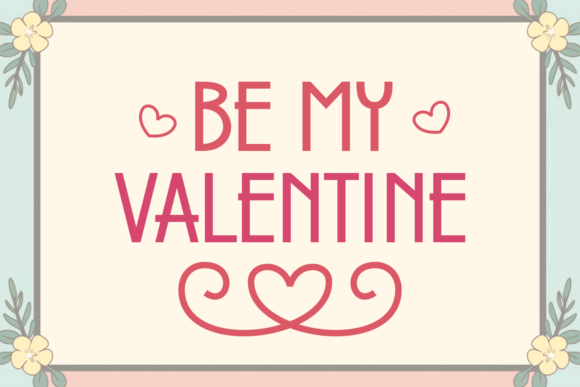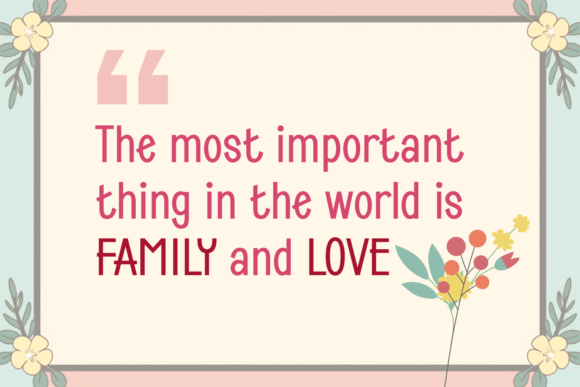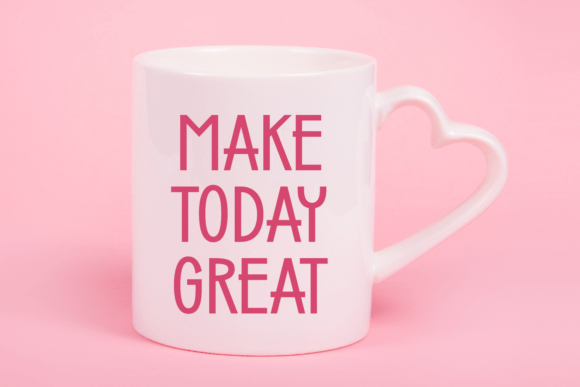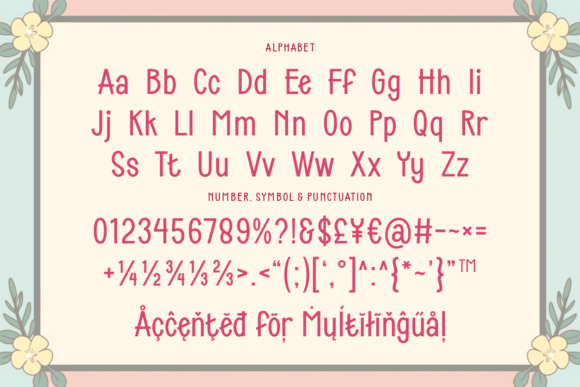
Introducing the Come On Honey Font: A Delightful Modern Typeface
The Come On Honey font is a charming and modern typeface that exudes warmth and sweetness. Its unique design makes it an excellent choice for a variety of creative projects, from bakery branding to whimsical home decor designs. In this article, we’ll explore the features and benefits of the Come On Honey font, and how it can elevate your designs to the next level.
A Warm and Inviting Typeface
The Come On Honey font features tall, slender letterforms with playful, slightly irregular lines that give it a warm, hand-drawn personality. This distinctive design makes it stand out from more traditional typefaces, adding a touch of whimsy and charm to any project. The font’s lighthearted energy ensures that your message is delivered with a smile, making it perfect for designs that require a friendly and approachable tone.
The Come On Honey font is ideal for a wide range of creative projects, including:
- Bakery branding: Add a touch of sweetness to your bakery’s logo or packaging with the Come On Honey font.
- Greeting cards: Create warm and inviting greeting cards for special occasions, such as birthdays, weddings, or holidays.
- Whimsical home decor designs: Use the Come On Honey font to add a playful touch to your home decor designs, such as wall art, signs, or fabric patterns.
- Children’s products: The Come On Honey font pairs beautifully with soft pastel colors and floral illustrations, making it an excellent choice for children’s products, such as toys, books, or nursery decor.
- Lifestyle blogs: Add a friendly and approachable tone to your lifestyle blog with the Come On Honey font.
Design Possibilities
The Come On Honey font offers endless design possibilities, limited only by your imagination. Here are a few ideas to get you started:
- Custom invitations: Create unique and personalized invitations for special occasions, such as baby showers, bridal showers, or birthday parties.
- Boutique logos: Use the Come On Honey font to create a custom logo for your boutique or small business.
- Social media graphics: Add a touch of whimsy to your social media graphics, such as Facebook posts, Instagram stories, or Pinterest pins.
Why Choose the Come On Honey Font?
There are many reasons to choose the Come On Honey font for your next design project:
- Unique design: The Come On Honey font features a distinctive design that sets it apart from more traditional typefaces.
- Warm and inviting: The font’s lighthearted energy ensures that your message is delivered with a smile.
- Versatile: The Come On Honey font is suitable for a wide range of creative projects, from bakery branding to lifestyle blogs.
- Easy to use: The font is easy to read and works well in a variety of design contexts.
Tips for Using the Come On Honey Font
Here are a few tips for getting the most out of the Come On Honey font:
- Pair with soft pastel colors: The Come On Honey font pairs beautifully with soft pastel colors, creating a warm and inviting atmosphere.
- Add floral illustrations: Floral illustrations complement the Come On Honey font perfectly, adding a touch of whimsy and charm to your designs.
- Experiment with different sizes: The Come On Honey font works well in a variety of sizes, from large headings to smaller body text.
The Come On Honey font is a delightful modern typeface that radiates sweetness and charm. Its unique design makes it an excellent choice for a wide range of creative projects, from bakery branding to whimsical home decor designs. With its lighthearted energy and warm, inviting personality, the Come On Honey font is sure to elevate your designs to the next level. So why not give it a try and see the difference it can make in your designs?